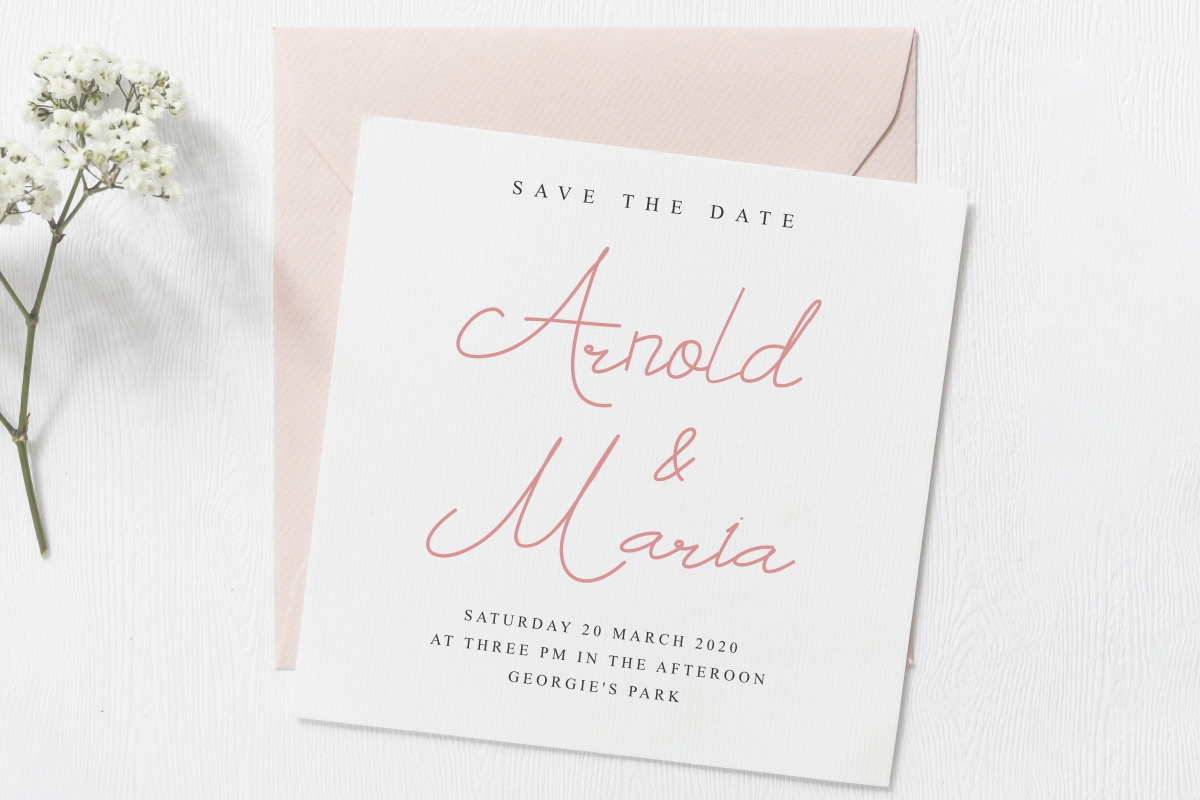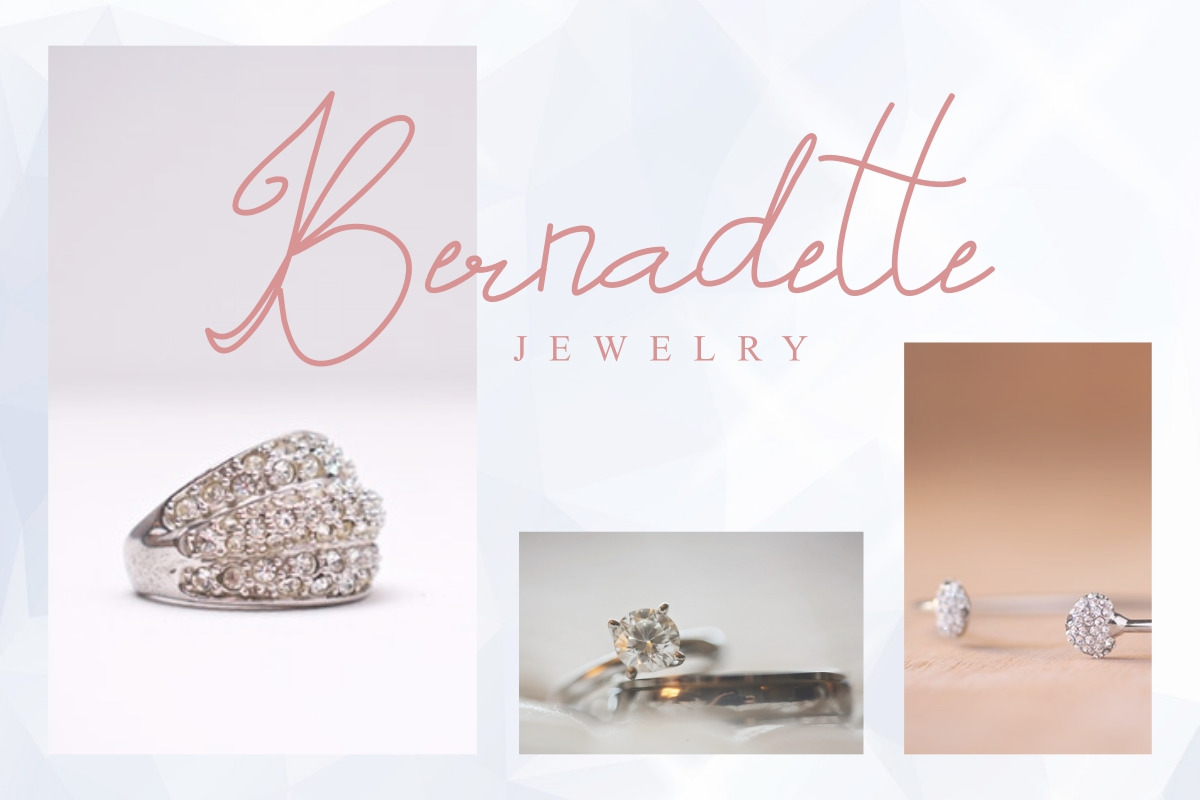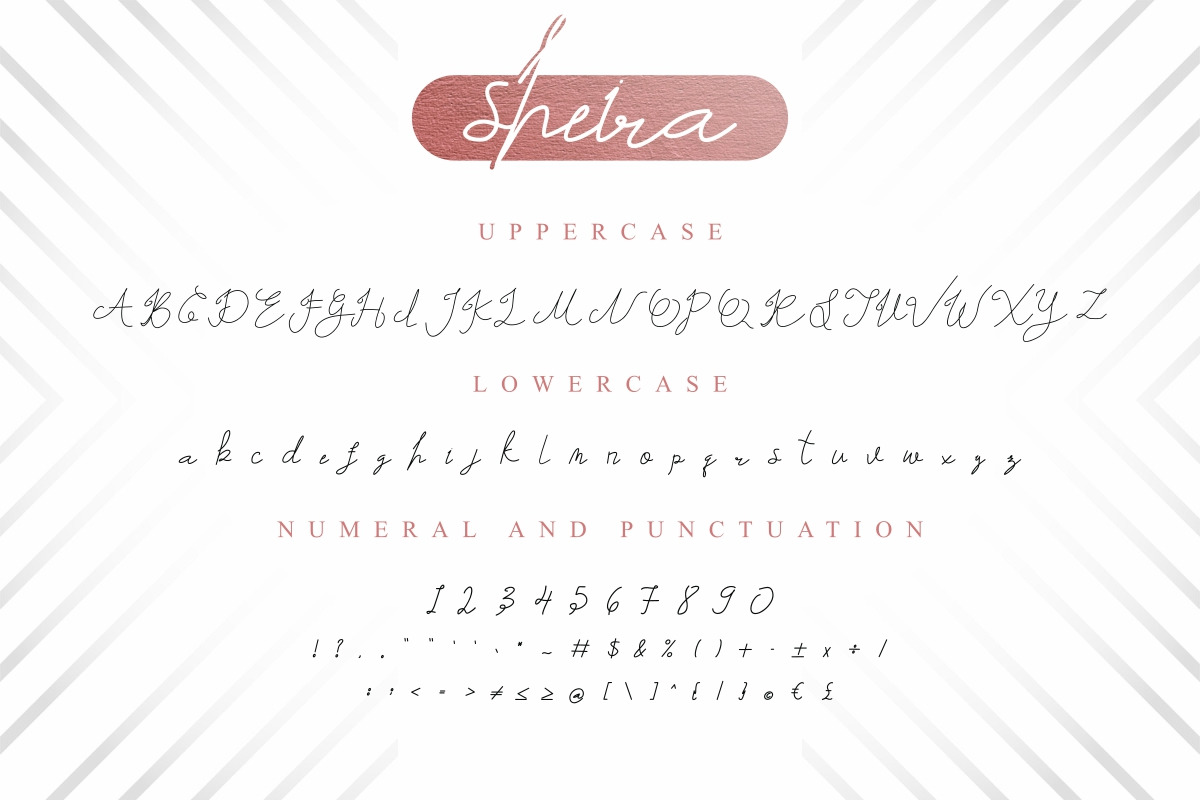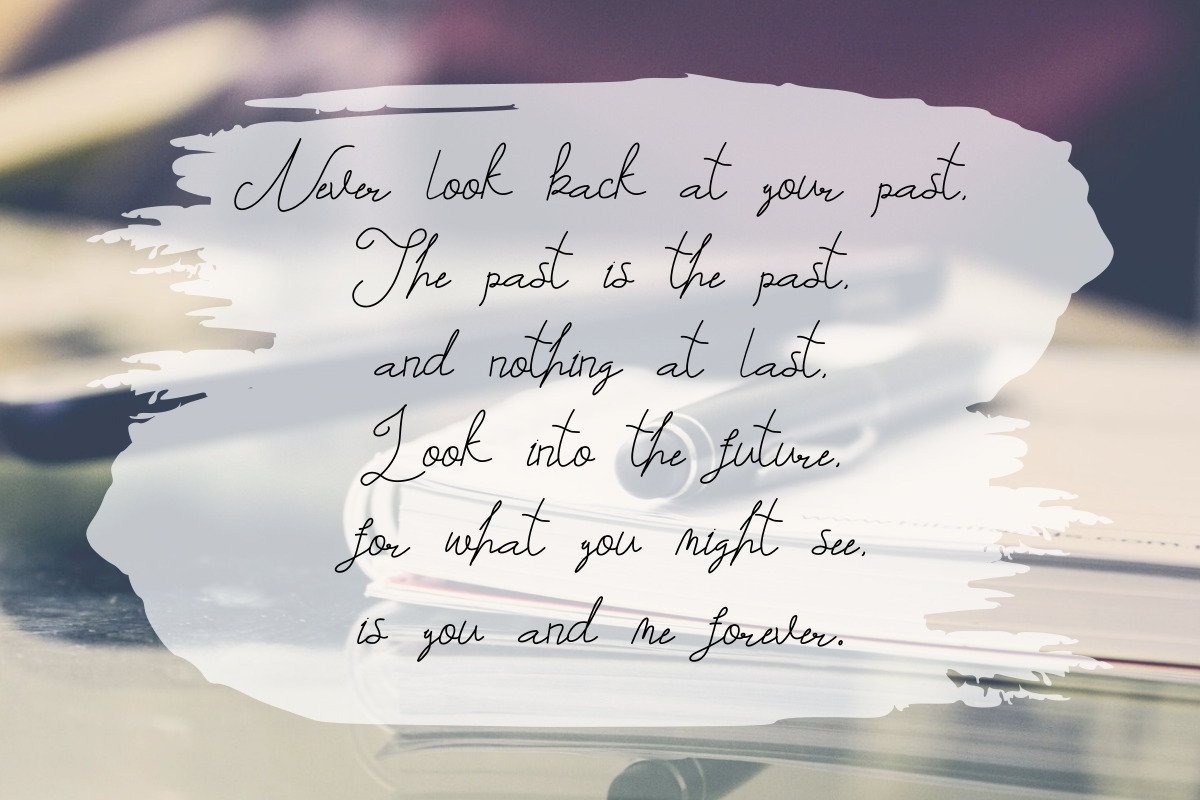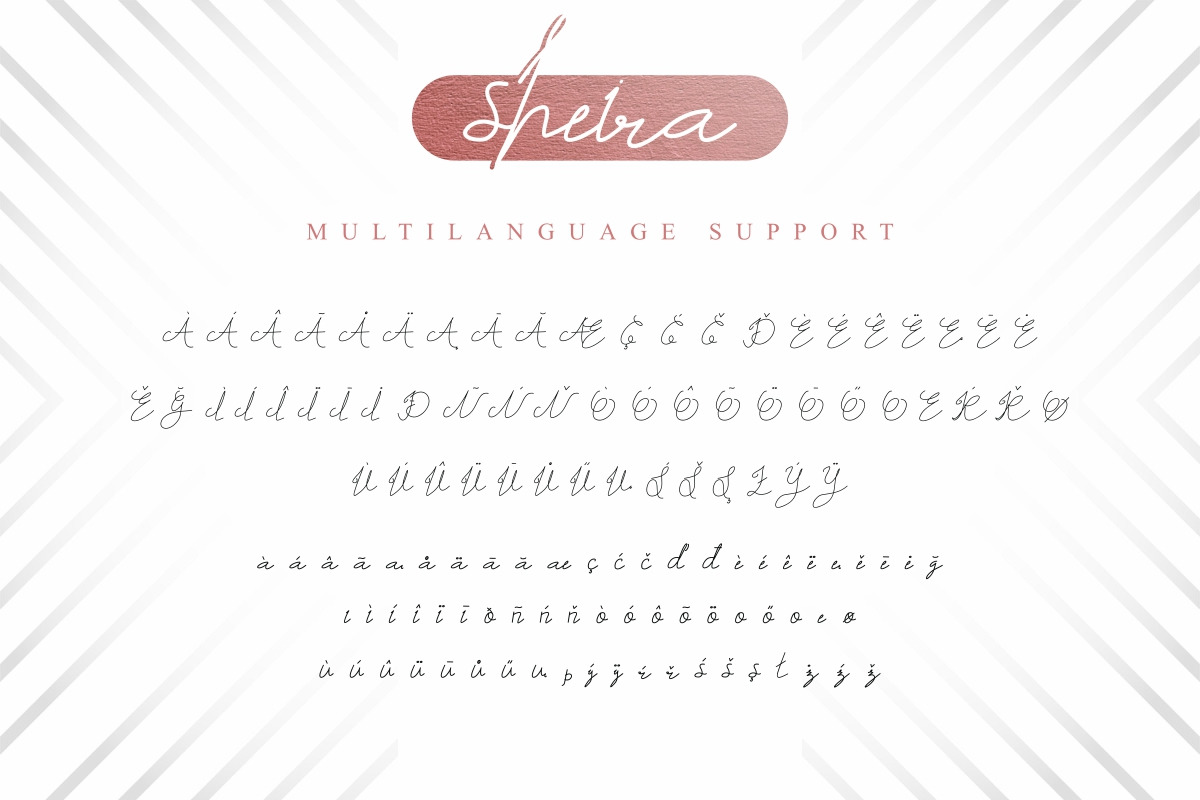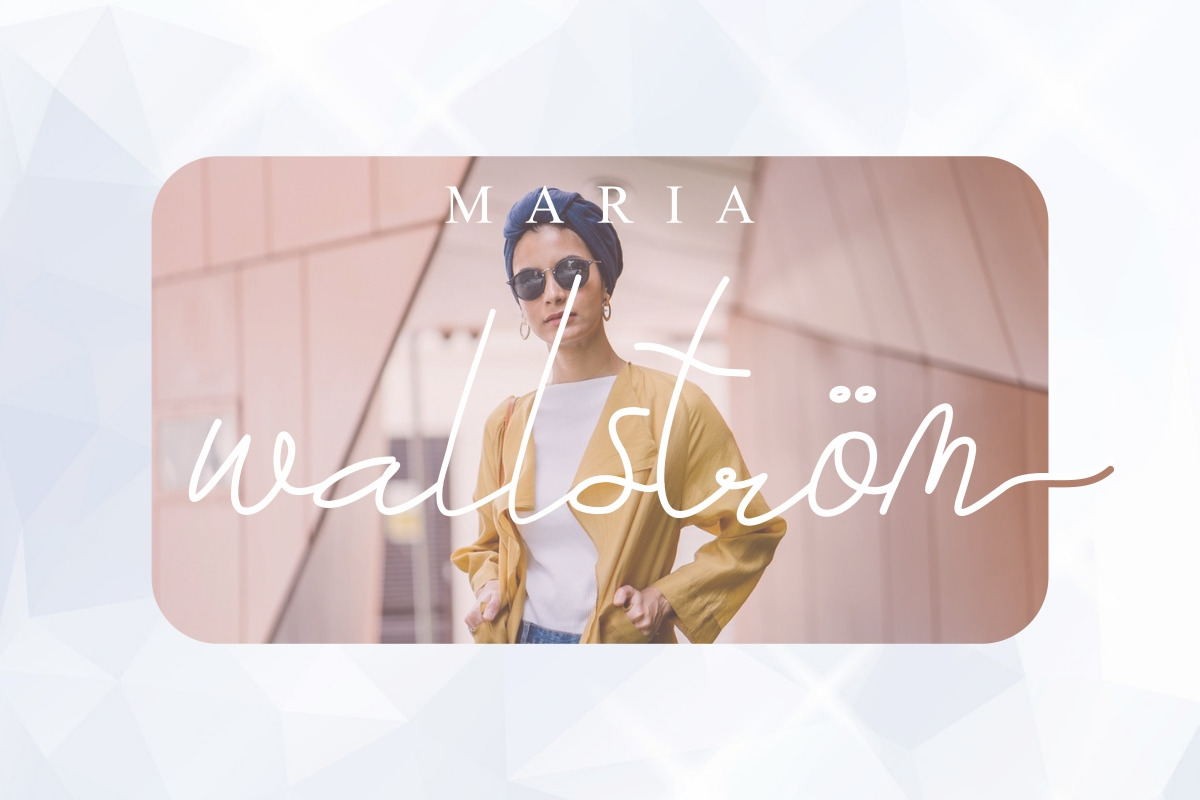
Sheira Signature Font
Be prepared, a new awesome signature style font is here. Please meet “Sheira” The Great signature font.
Sheira Signature is a script font family from edricstudio. This font has a cursive signature look font script. The glyphs are exclusively made with alternatives styles on each lowercase glyphs. With an extended license, you will be able to make a great products : Logo type, branding, flyer, stationery, business card, signage, flyer, brochure, magazine, offline promotion etc.
The Sheira Signature is also support many international languages characters.